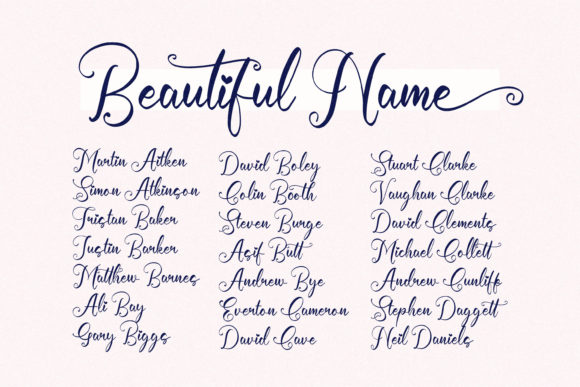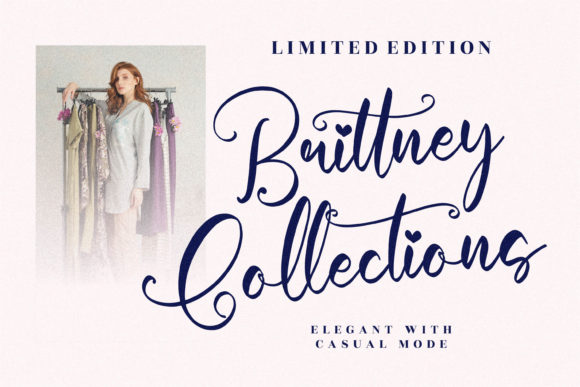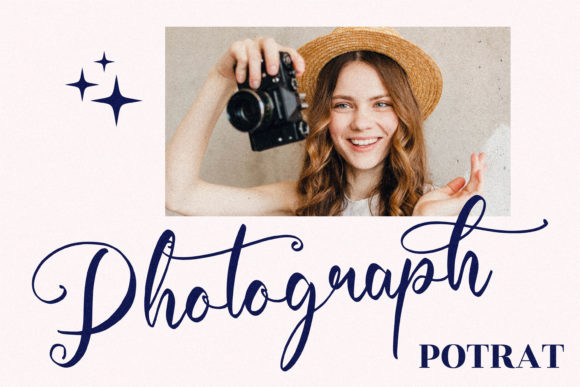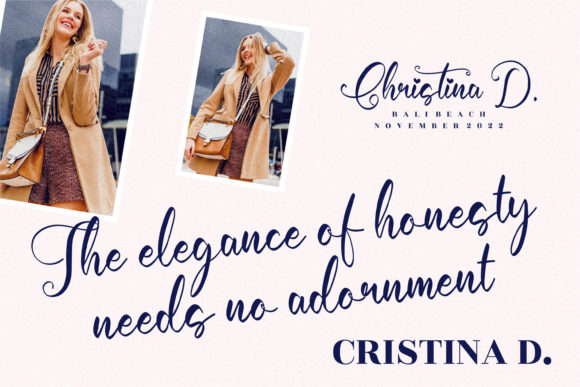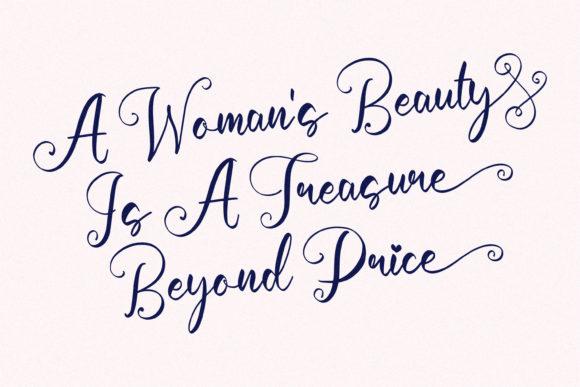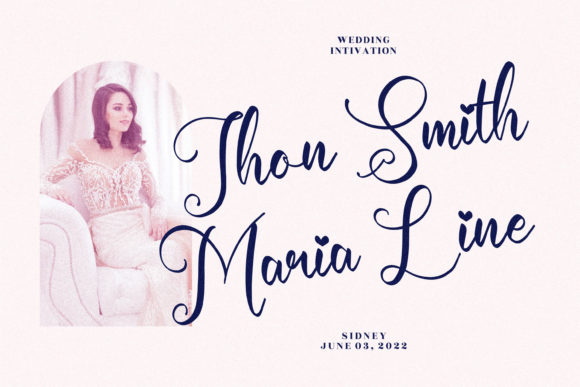
Have you ever stared at a blank page, waiting for the perfect font to bring your design to life? We’ve all been there. For designers, finding the right font can be a game-changer, elevating a simple project into a stunning work of art. That’s where Cathrina Belisha Font comes in – an elegant script font that’s sure to captivate your audience.
Cathrina Belisha Font is a masterful blend of classic calligraphy and modern flair, designed to add a touch of sophistication to any project. With its balanced and varied strokes, this font is perfect for designers looking to create a timeless and professional look. Plus, its PUA encoding means you can easily access all glyphs and swashes, giving you endless possibilities for customization.
Cathrina Belisha Font Review
I recently had the chance to work with the Cathrina Belisha font, and I must say, it’s an interesting addition to the font family. ✨ One thing that really stands out is the unique, elegant design that’s reminiscent of traditional calligraphy. The intricate details and flourishes give it a touch of sophistication, making it perfect for formal projects or designs that need a bit of luxury.
However, there are some limitations to consider. ⚠️ The font can be quite busy, which may make it difficult to read in certain situations. Additionally, the font’s complexity can make it challenging to pair with other fonts or designs. This might limit its versatility and usability in certain projects.
- Elegant, sophisticated design ✨
- Unique, intricate details
- Perfect for formal projects or designs
- May be difficult to read in certain situations ⚠️
- Can be challenging to pair with other fonts or designs
Overall, the Cathrina Belisha font is a great option for designers looking to add a touch of elegance to their projects. While it may have some limitations, its unique design and sophistication make it a valuable addition to any font collection.
The Cathrina Belisha Font is ideal for use in creative and elegant designs, such as: